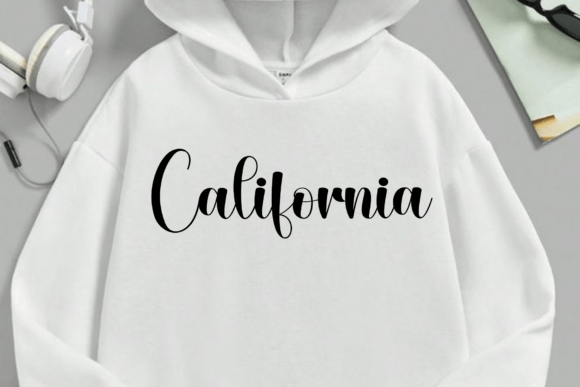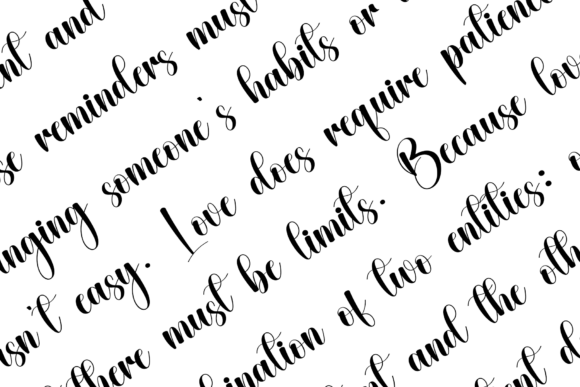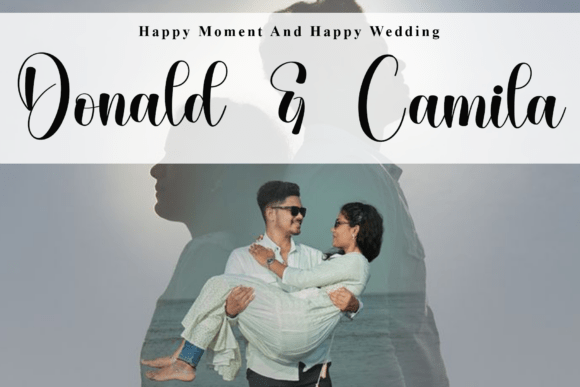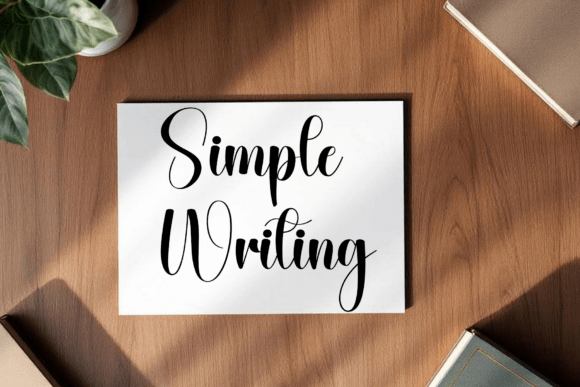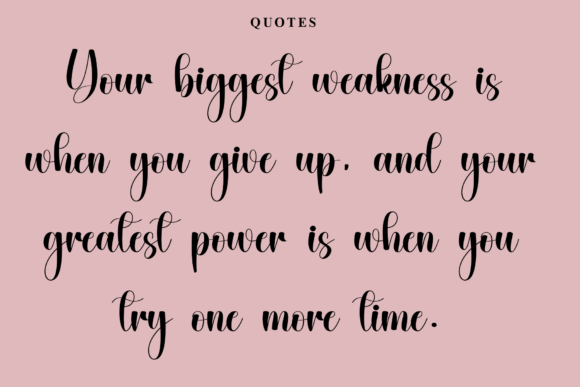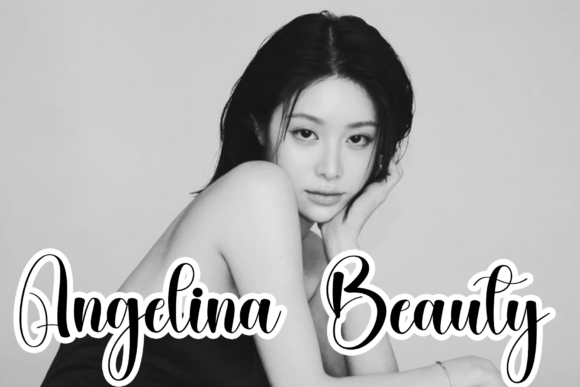
Introduction to Pinky Promise Font
Have you ever stumbled upon a design that makes your heart skip a beat, and you just can’t wait to recreate that magic in your own project? For designers, finding the perfect font can be a game-changer. It’s that one element that brings your creative vision to life, and the right font can elevate your design from good to great. In this article, we’ll explore the beauty of the Pinky Promise Font, a stunning handwritten script font that’s sure to captivate your audience.
As a valuable design resource, the Pinky Promise Font is perfect for adding a touch of elegance and sophistication to your next creative project. Whether you’re working on a wedding invitation, a branding project, or a greeting card, this high-quality font is sure to impress. With its smooth, stylish lines and refined ligatures, the Pinky Promise Font is a must-have for any designer looking to add a little magic to their work.
Key Features of Pinky Promise Font
- High-quality design: The Pinky Promise Font is crafted with precision to deliver a professional and elegant look for your creative project.
- Large character set: This font includes a wide range of characters, including uppercase and lowercase letters, numbers, and punctuation marks, making it suitable for various creative projects.
- Perfect for creative projects: The Pinky Promise Font is ideal for use in design projects that require a touch of elegance and sophistication, such as invitations, greeting cards, and branding materials.
Honest Review: Pinky Promise Font
I recently stumbled upon the Pinky Promise Font, a free download that caught my attention with its high quality design. The font is perfect for any creative project that requires a touch of whimsy and playfulness.
- ✨ Versatile font that can be used in a variety of creative projects, from logos to graphics.
However, there are some limitations to the Pinky Promise Font. The font is not suitable for formal or professional designs, as it may come across as too playful or childish.
Overall, I’m impressed with the Pinky Promise Font. It’s a great design resource for designers who want to add a touch of personality to their work. While it may not be suitable for every design project, it’s an excellent choice for creative and playful designs.
Pinky Promise Font
Tips for Getting the Most Out of Pinky Promise Font
To get the most out of the Pinky Promise Font, use it in creative projects where a playful and whimsical feel is desired. Consider using it for social media graphics, party invitations, or children’s book illustrations.
The Pinky Promise Font is perfect for use in a variety of creative projects, including:
- Party invitations
- Children’s book illustrations
- Wedding invitations